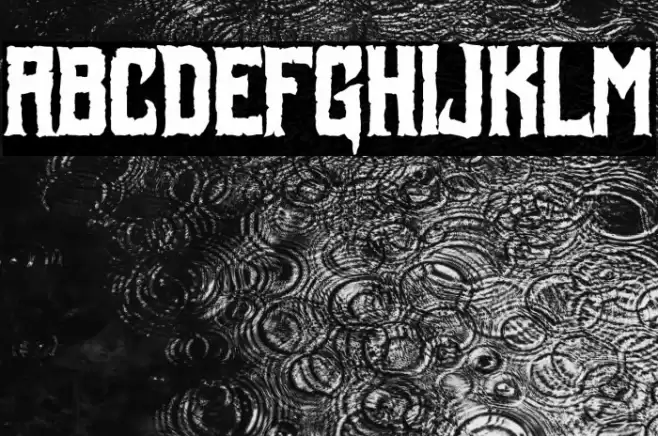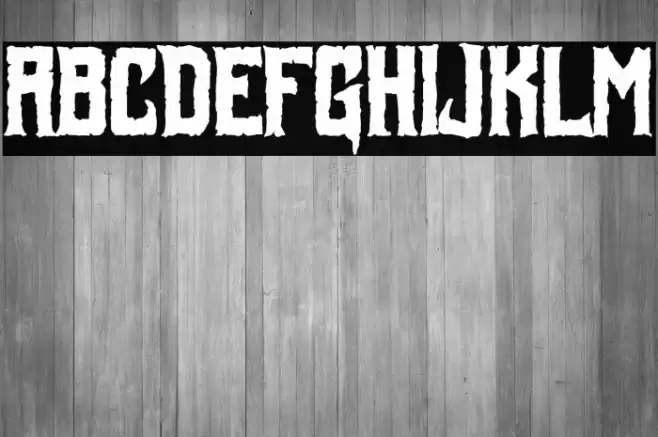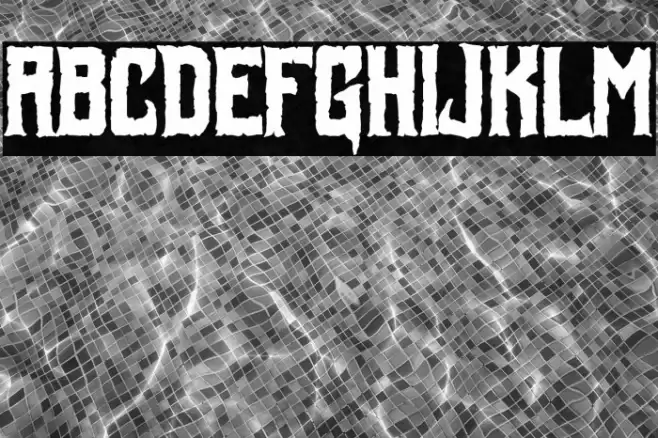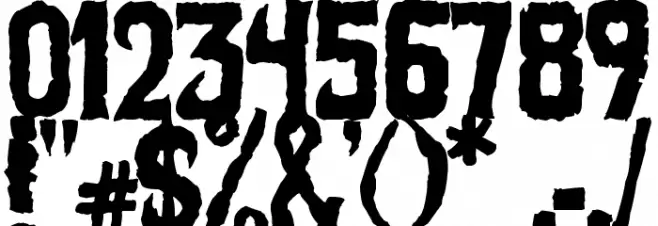
Foul Fiend Font
Foul Fiend Description
This font features a rugged, distressed style with irregular edges and a bold presence. The characters are heavily textured, giving them a raw, hand-crafted appearance. The uppercase and lowercase letters maintain a consistent height, creating a uniform look despite the chaotic design. Numbers and special characters follow the same aesthetic, ensuring a cohesive visual identity. The font's unique style makes it ideal for projects that require a gritty, rebellious, or edgy feel. Its boldness ensures readability while maintaining an artistic flair.
A rugged, distressed font with a bold, hand-crafted appearance from Uncategorized fonts.
- Font: Foul Fiend
- Proposed Projects: Ideal for album covers, horror movie posters, edgy branding, and street art designs.
Foul Fiend UPPERCASE
Foul Fiend LOWERCASE
Foul Fiend OTHER CHARS